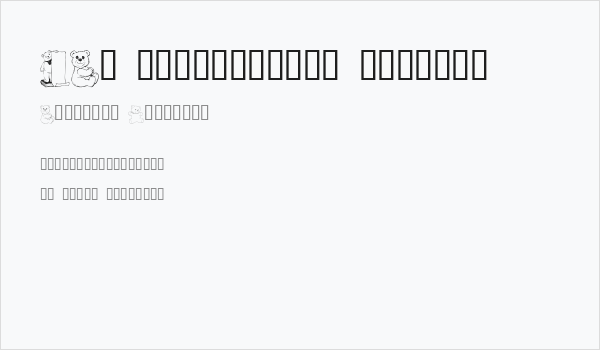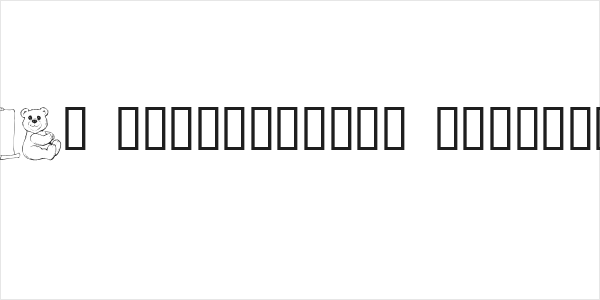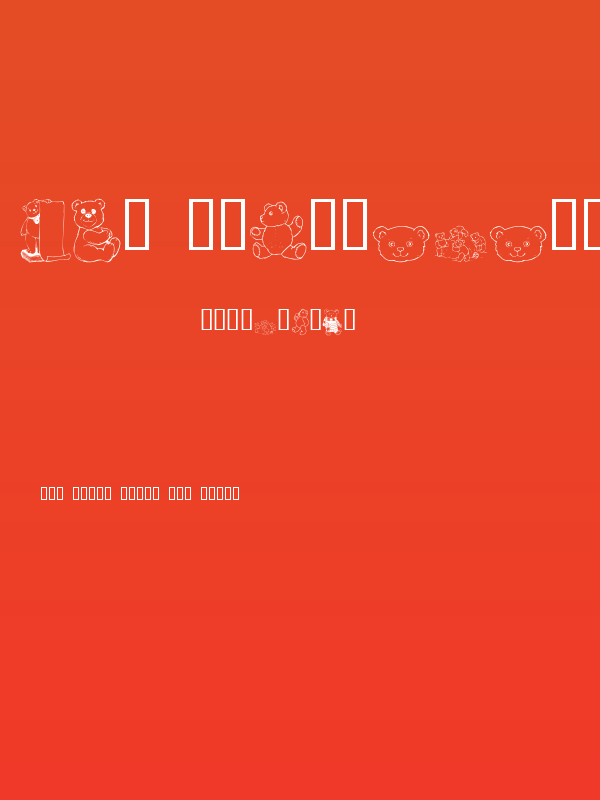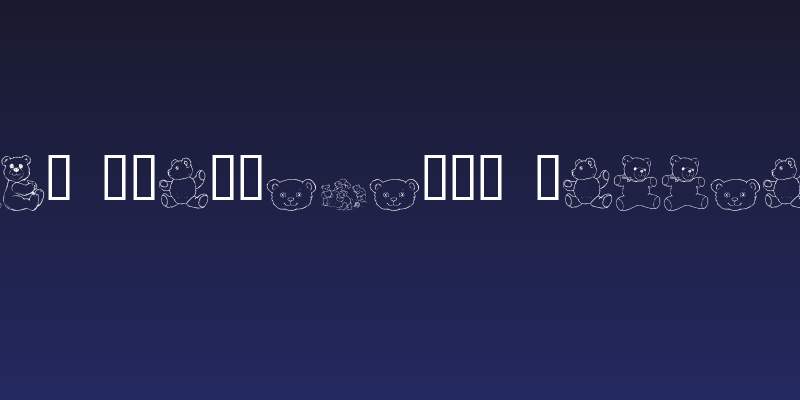
LCR Prestigious Teddies Font
LCR Prestigious Teddies Description
This whimsical and playful font features a series of adorable teddy bear illustrations, each uniquely styled to represent different characters. The font is more of an artistic representation rather than traditional letterforms, making it ideal for creative projects that require a touch of charm and personality. The bears are depicted in various poses and outfits, adding a delightful and endearing quality to the design. This font is perfect for children's projects, scrapbooking, or any design that seeks to evoke a sense of nostalgia and warmth.
| Use Case | Decorative elements, Children's projects |
| Proposed Projects | Ideal for children's books, greeting cards, scrapbooking, and playful branding projects. |